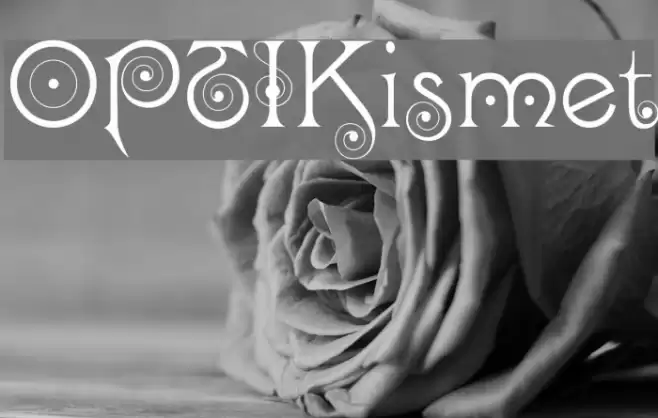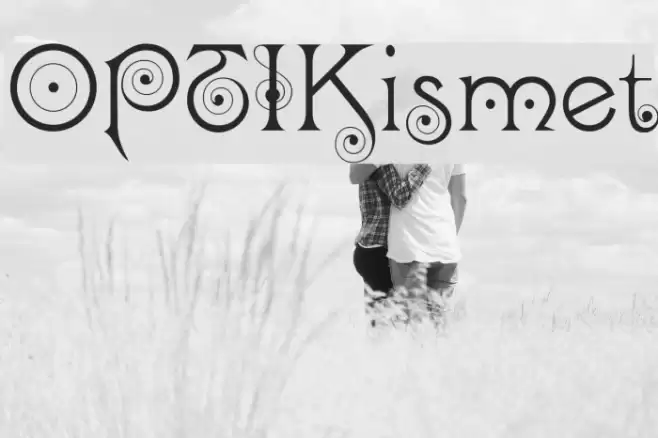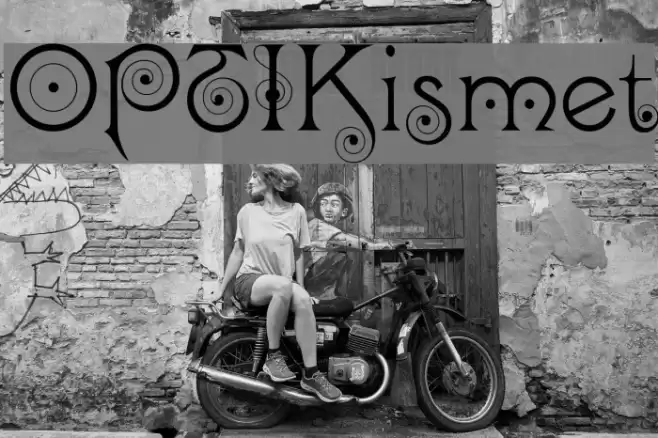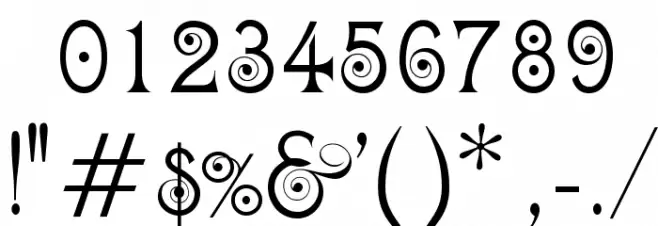
OPTIKismet Font
OPTIKismet Description
This font features a whimsical and decorative style with intricate swirls and curls integrated into the letterforms. The uppercase letters are particularly ornate, with some characters displaying spiral motifs that add a playful yet elegant touch. The lowercase letters maintain a consistent style, with a slightly more subdued flair compared to the uppercase. The numerals and special characters continue the theme, ensuring a cohesive appearance across all glyphs. This font's unique design makes it stand out, offering a blend of artistic flair and readability.
A whimsical and decorative font with intricate swirls and curls from Uncategorized fonts.
- Proposed Projects: Ideal for projects that require a touch of elegance and creativity, such as invitations, greeting cards, branding for artistic ventures, or decorative posters.
- Use Case: Headlines, Logos, Invitations